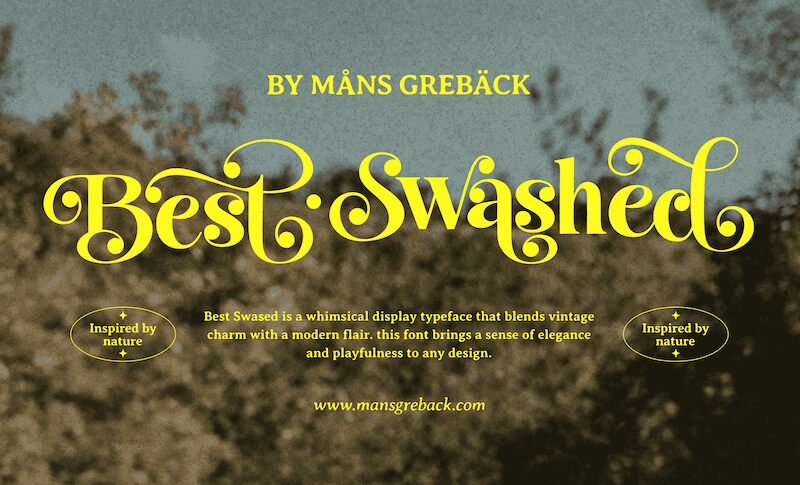
Best Swashed font
Best Swashed
Best Swashed is a decorative serif typeface designed by Mans Greback, radiating bold charm and ornamental flair. Each letterform is crafted with striking swirls and curling terminals, giving the impression of vintage signage infused with playful elegance.
The uppercase characters stand with dramatic presence, while the lowercase maintains harmony with refined, flowing details.